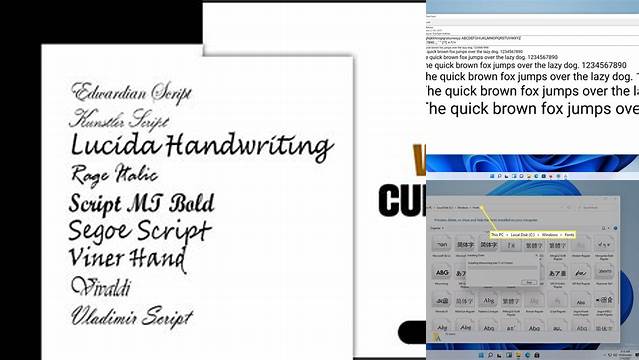
Elegant Windows 11: Cursive Fonts Guide
Are you looking to spice up your Windows 11 experience with some elegant cursive fonts? You've come to the right place! In this comprehensive guide, we'll dive deep into the world of cursive fonts on Windows 11, exploring everything from installation to usage, and even some troubleshooting tips. So, whether you're a designer, a student, or simply someone who appreciates the beauty of calligraphy, get ready to discover the perfect cursive font for your needs.
Why Use Cursive Fonts?
Cursive fonts, with their flowing strokes and handwritten feel, can add a touch of sophistication and personality to your documents, designs, and presentations. Unlike standard serif or sans-serif fonts, cursive fonts evoke a sense of warmth, creativity, and individuality. Imagine crafting a heartfelt invitation, designing a stunning logo, or creating a visually appealing presentation – a well-chosen cursive font can make all the difference. Cursive fonts can help you achieve a variety of effects, from formal elegance to playful charm. The right cursive font can elevate your work, making it more memorable and impactful. Cursive fonts are not just about aesthetics, they're about making a statement. They're about letting your personality shine through your work. If you're looking for a way to add a unique touch to your projects, exploring the world of cursive fonts is a great place to start. Cursive fonts are more than just a stylistic choice, they're a powerful tool for communication. They can convey emotions, set the tone, and create a lasting impression. Think about the power of a handwritten letter – the cursive script adds a personal touch that a typed message simply can't replicate. Cursive fonts offer a similar effect in the digital realm, allowing you to inject your work with a sense of authenticity and connection. In a world dominated by digital communication, cursive fonts offer a refreshing reminder of the beauty and artistry of handwriting. They're a way to bridge the gap between the digital and the analog, bringing a human touch to your online presence. So, whether you're designing a website, crafting a social media post, or creating a presentation, consider the impact that a cursive font can have. It might just be the secret ingredient you need to stand out from the crowd.
Windows 11 offers excellent support for cursive fonts, allowing you to add a touch of elegance and personality to your digital creations. By following the steps outlined in this guide, you can easily install and use cursive fonts in your favorite applications. So go ahead, explore the world of cursive fonts and unleash your creativity! Whether you're designing a wedding invitation, crafting a logo, or simply writing a heartfelt letter, the perfect cursive font can help you make a lasting impression. With a wide variety of cursive fonts available, you're sure to find the perfect one to match your style and needs. Remember to choose fonts that are both visually appealing and easy to read. Balance is key when using cursive fonts, so use them sparingly and strategically to achieve the desired effect. Don't be afraid to experiment with different fonts and combinations to find what works best for you. The world of typography is vast and exciting, so have fun exploring it! By mastering the art of cursive fonts, you can elevate your work and communicate your message with style and grace. So go ahead, download some new fonts, fire up your favorite applications, and start creating beautiful things! You've got this, guys!